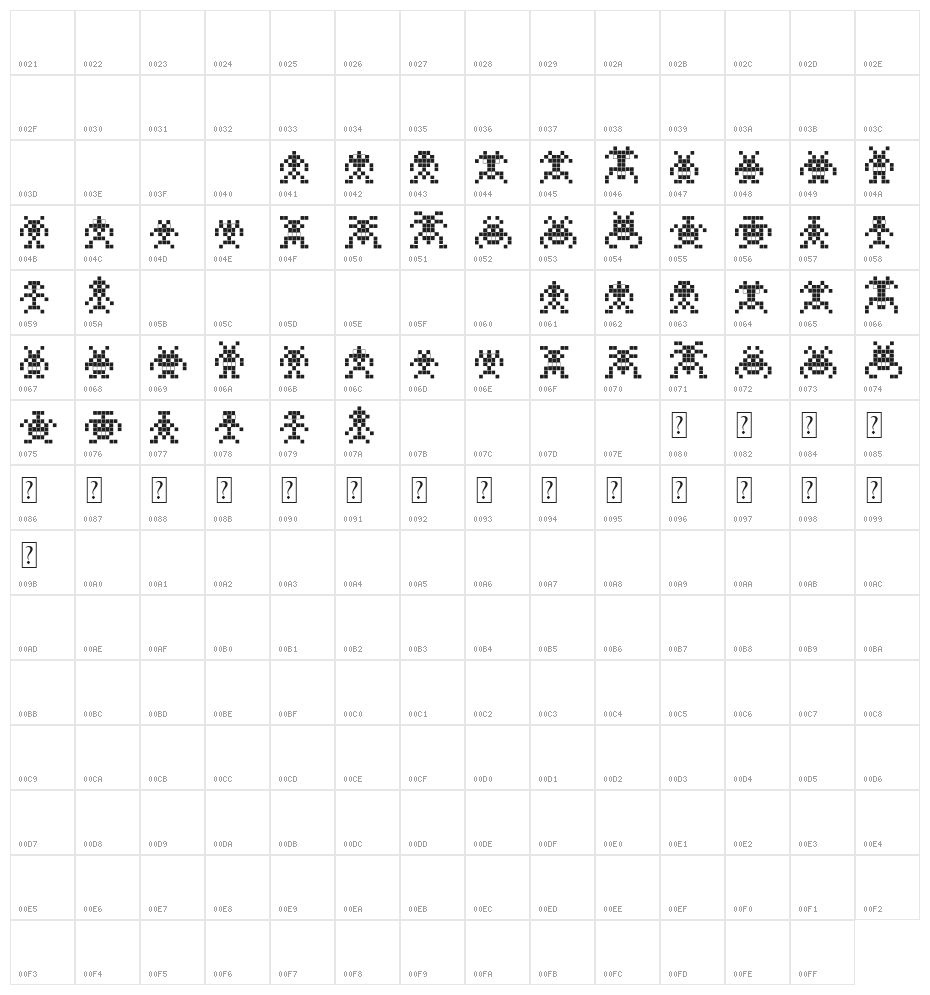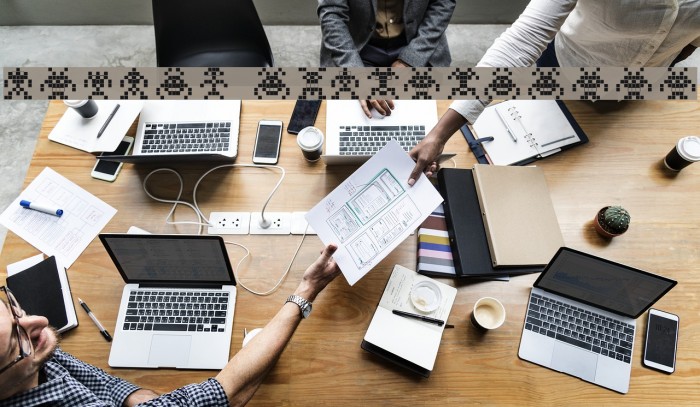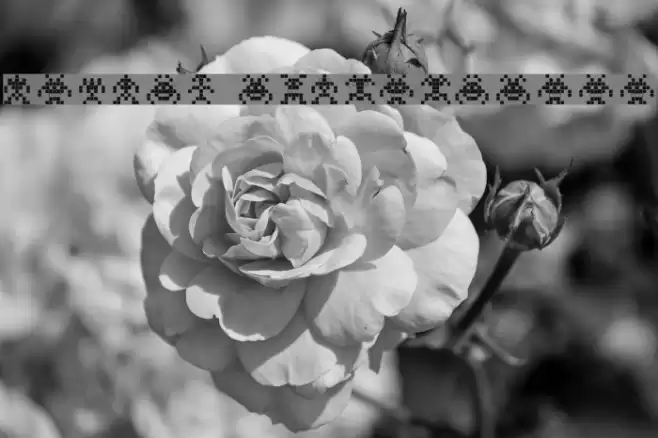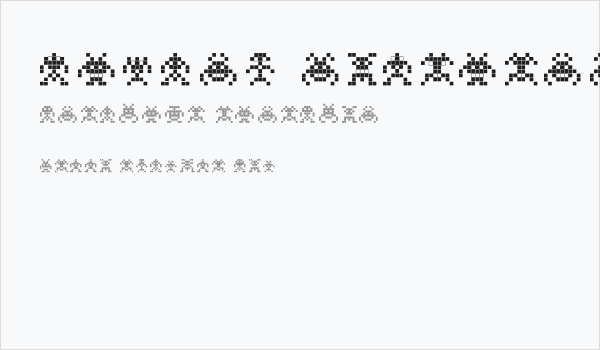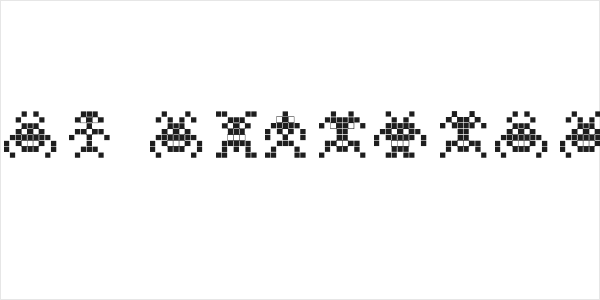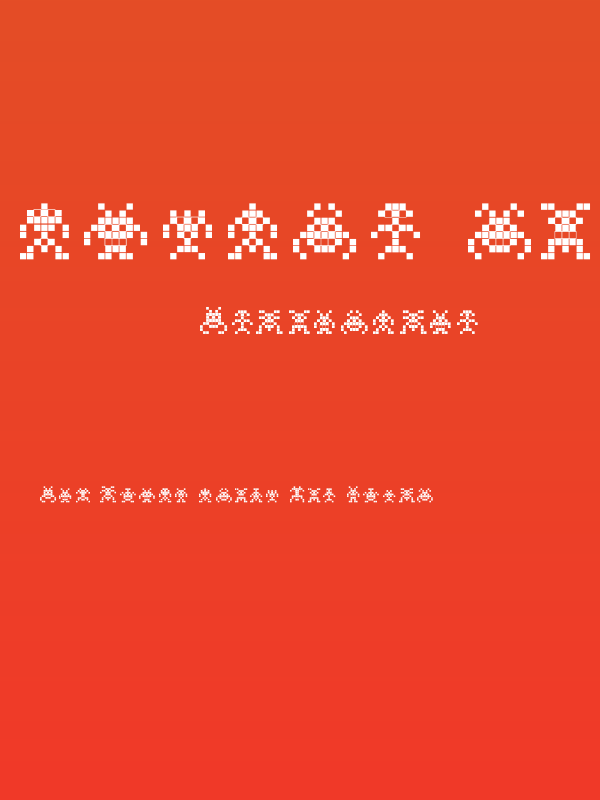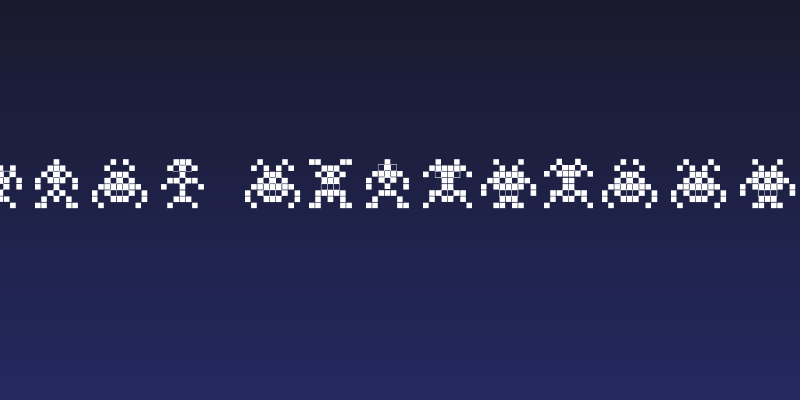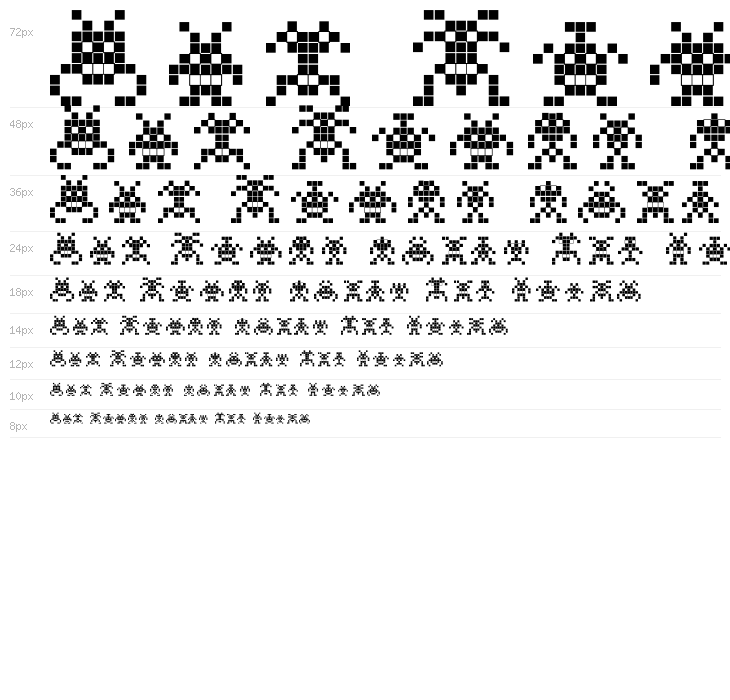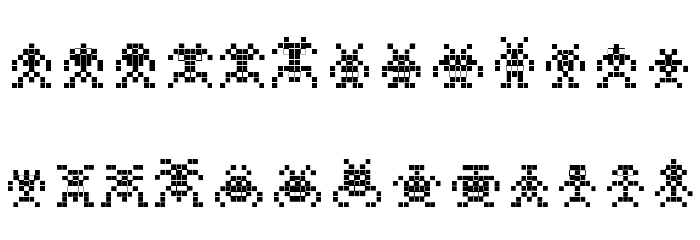
Binary SoldiersIII Font
Binary SoldiersIII Description
This font features a unique, pixelated design reminiscent of retro video game characters. Each character is constructed from a grid of small squares, creating a blocky and digital aesthetic. The font captures a nostalgic, arcade-like feel, making it ideal for projects that aim to evoke a sense of vintage gaming or digital art. The characters are uniform in height and width, maintaining a consistent and cohesive look across the set. The style is playful and distinctive, with each letter and symbol crafted to resemble a small, pixelated figure.
| Use Case | Logos, Posters, Video Game Graphics |
| Proposed Projects | Ideal for retro video game designs, digital art projects, nostalgic branding, or any creative work that seeks to capture a vintage gaming vibe. |